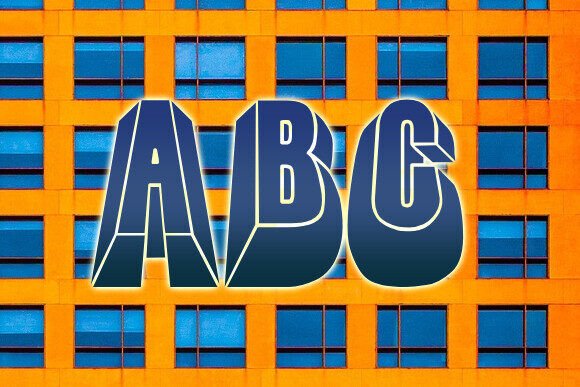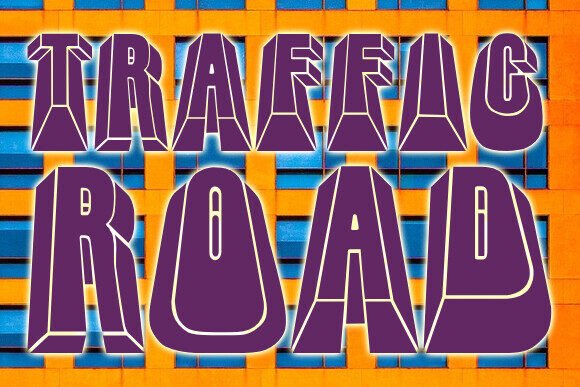
Diamond City Font: The Ultimate Bold and Geometric Display Font for Modern Designs
In the world of typography, fonts play a crucial role in conveying the tone and aesthetic of a design. For designers and crafters looking to add a touch of futurism and urban flair to their projects, the Diamond City Font is an excellent choice. This bold, geometric display font boasts a unique 3D-inspired design that exudes confidence and innovation, making it perfect for a wide range of modern creative projects.
What is Diamond City Font?
Diamond City Font is a carefully crafted typeface that features sharp angles and faceted letterforms, giving it a distinctive and high-energy aesthetic. Its geometric design makes it an excellent choice for designers looking to add a touch of modernity and sophistication to their work. The font’s bold and eye-catching appearance ensures that it stands out in any design, making it perfect for posters, logos, streetwear branding, and other creative projects.
Key Features of Diamond City Font
- Bold and Geometric Design: The Diamond City Font features a bold and geometric design that gives it a unique and modern aesthetic.
- 3D-Inspired Letterforms: The font’s letterforms are inspired by 3D design, giving them a faceted and angular appearance.
- High-Energy Aesthetic: The font’s sharp angles and geometric design give it a high-energy aesthetic that is perfect for modern and urban designs.
- Perfect for Display Text: The Diamond City Font is designed specifically for display text, making it perfect for posters, logos, and other creative projects.
Use Cases for Diamond City Font
The Diamond City Font is a versatile typeface that can be used in a wide range of creative projects. Here are some of the most popular use cases for this font:
- Posters and Flyers: The font’s bold and eye-catching appearance makes it perfect for posters and flyers that need to grab attention.
- Logos and Branding: The font’s unique and modern aesthetic makes it an excellent choice for logos and branding projects.
- Streetwear Branding: The font’s urban and high-energy aesthetic makes it perfect for streetwear branding and fashion projects.
- Modern Creative Projects: The font’s futuristic and geometric design makes it an excellent choice for modern creative projects, such as digital art and graphic design.
Why Choose Diamond City Font?
There are many fonts available that offer a similar aesthetic to Diamond City Font, but there are several reasons why designers and crafters should choose this font for their projects:
- Unique Design: The Diamond City Font features a unique and distinctive design that sets it apart from other fonts.
- High-Quality Typography: The font is carefully crafted to ensure that it is legible and visually appealing.
- Versatility: The font can be used in a wide range of creative projects, from posters and logos to streetwear branding and modern creative projects.
Tips for Using Diamond City Font
To get the most out of the Diamond City Font, here are some tips for using it in your designs:
- Use it for Display Text: The font is designed specifically for display text, so use it for headlines and titles.
- Experiment with Colors: The font’s bold and geometric design makes it perfect for experimenting with different colors and gradients.
- Pair it with Other Fonts: The font can be paired with other fonts to create a unique and visually appealing typography.
- Use it to Add Contrast: The font’s bold and eye-catching appearance makes it perfect for adding contrast to your designs.
The Diamond City Font is a bold, geometric display font that is perfect for modern creative projects. Its unique 3D-inspired design and high-energy aesthetic make it an excellent choice for designers and crafters looking to add a touch of futurism and urban flair to their work. With its versatility, high-quality typography, and ease of use, this font is sure to become a staple in any designer’s toolkit.